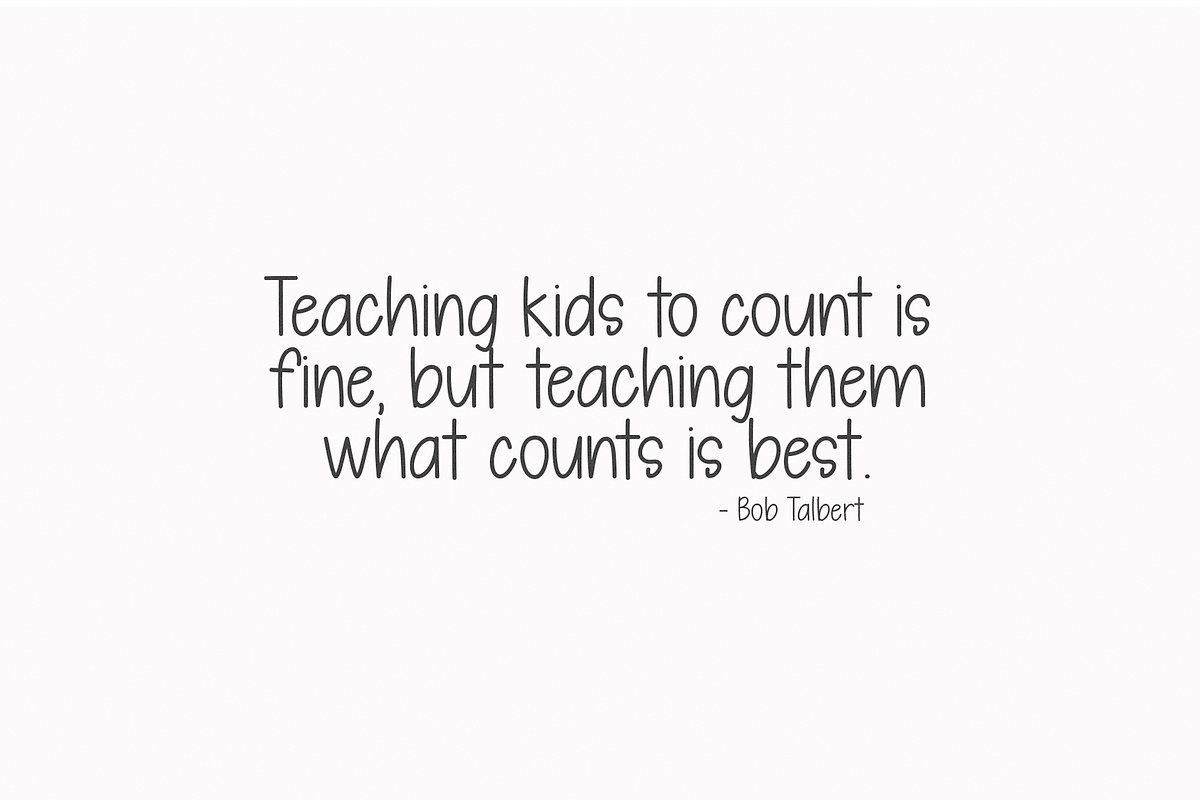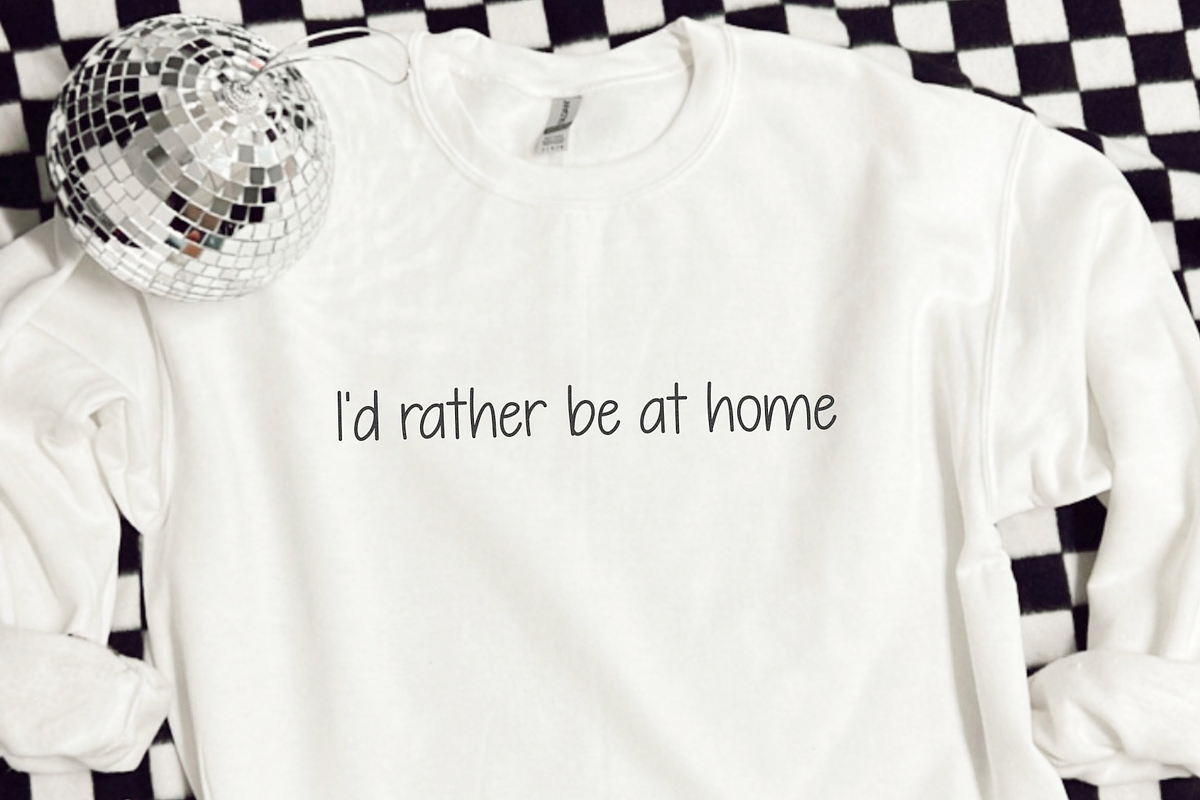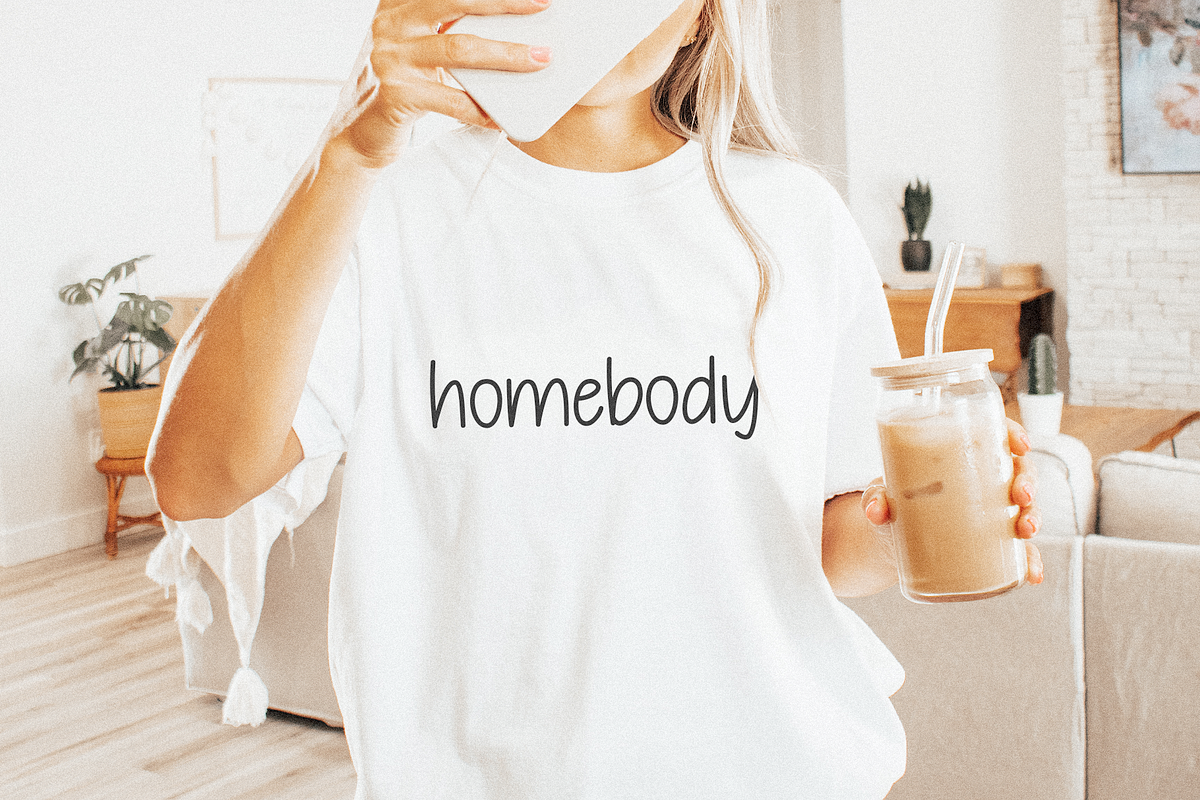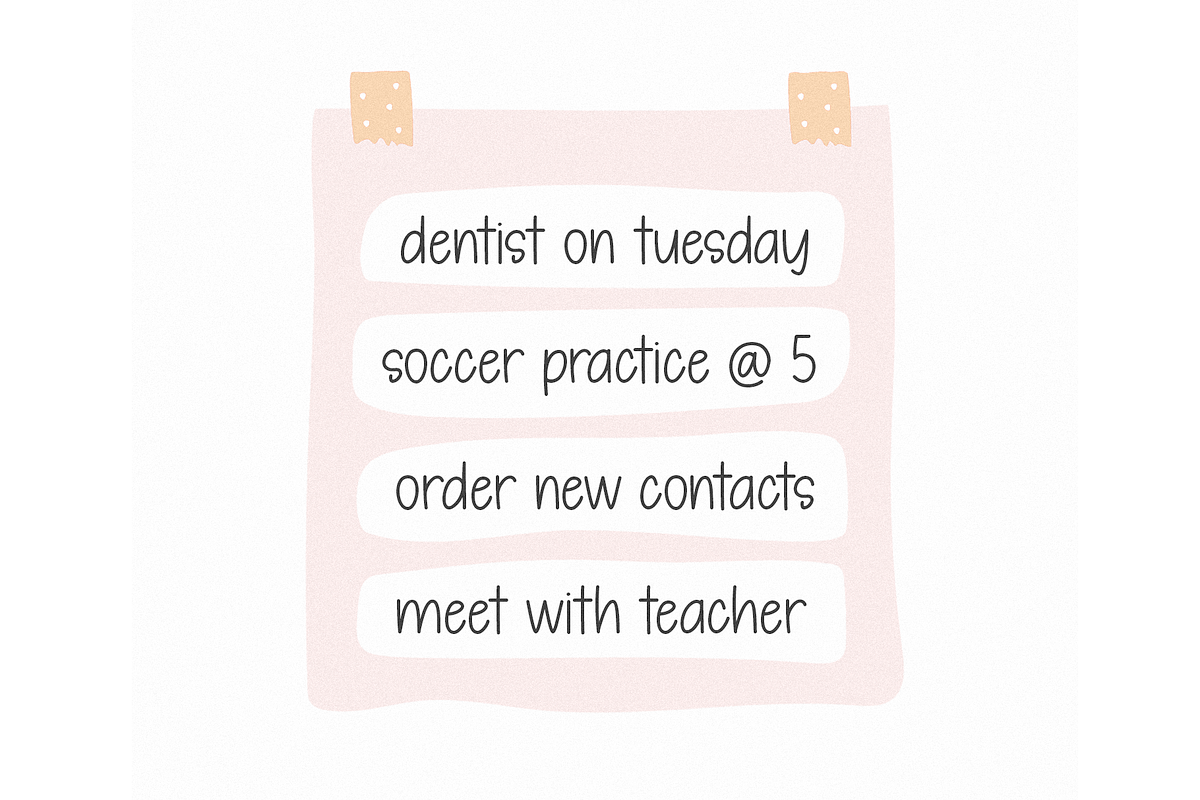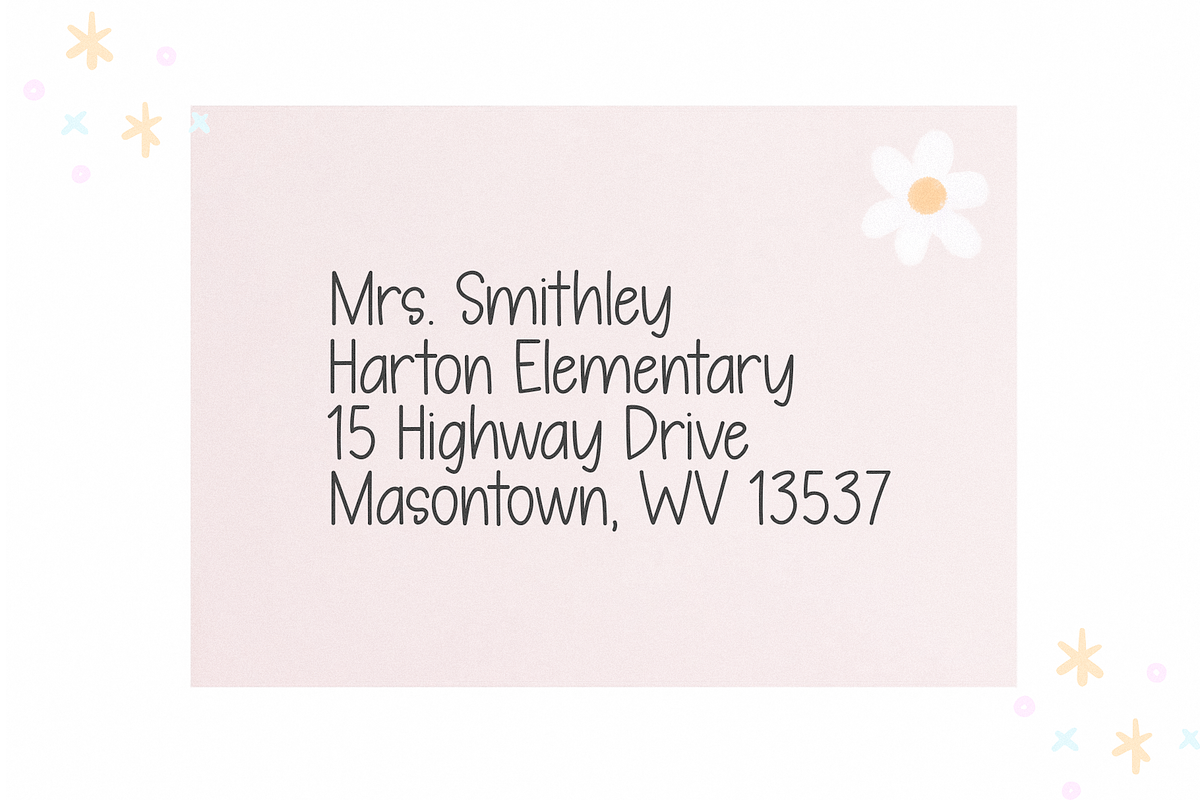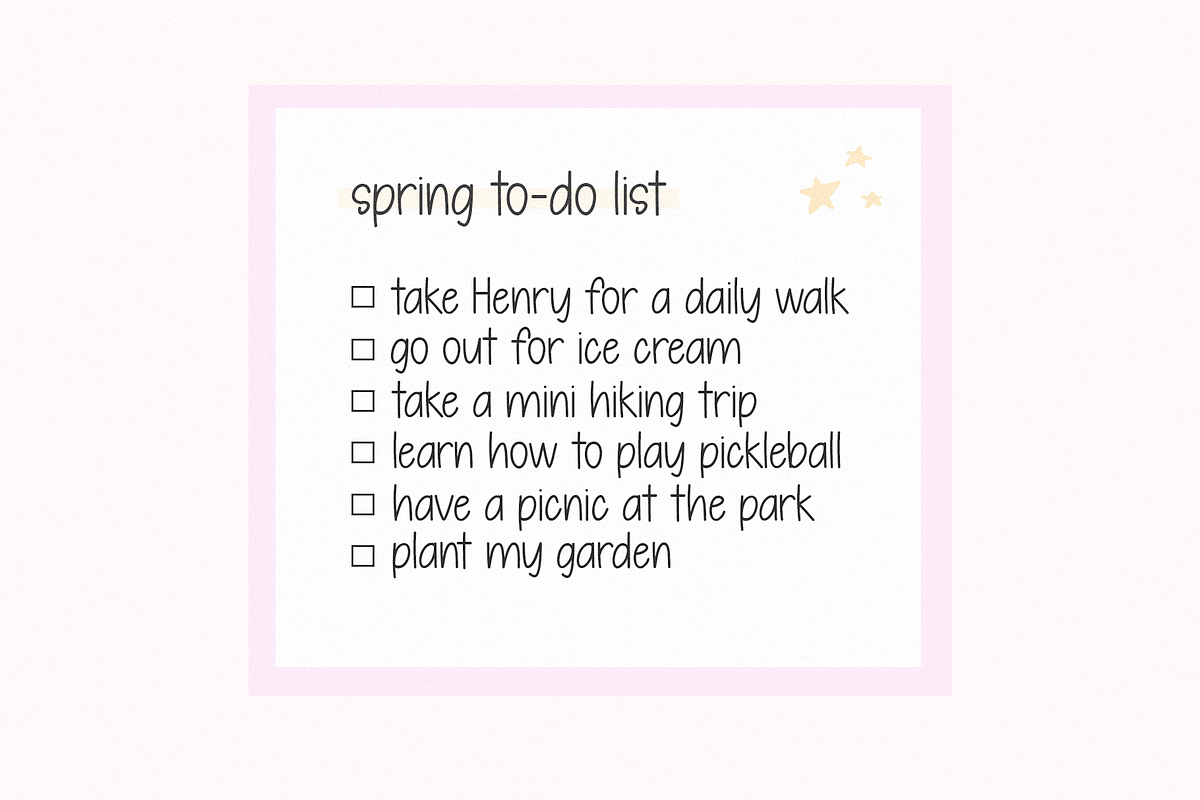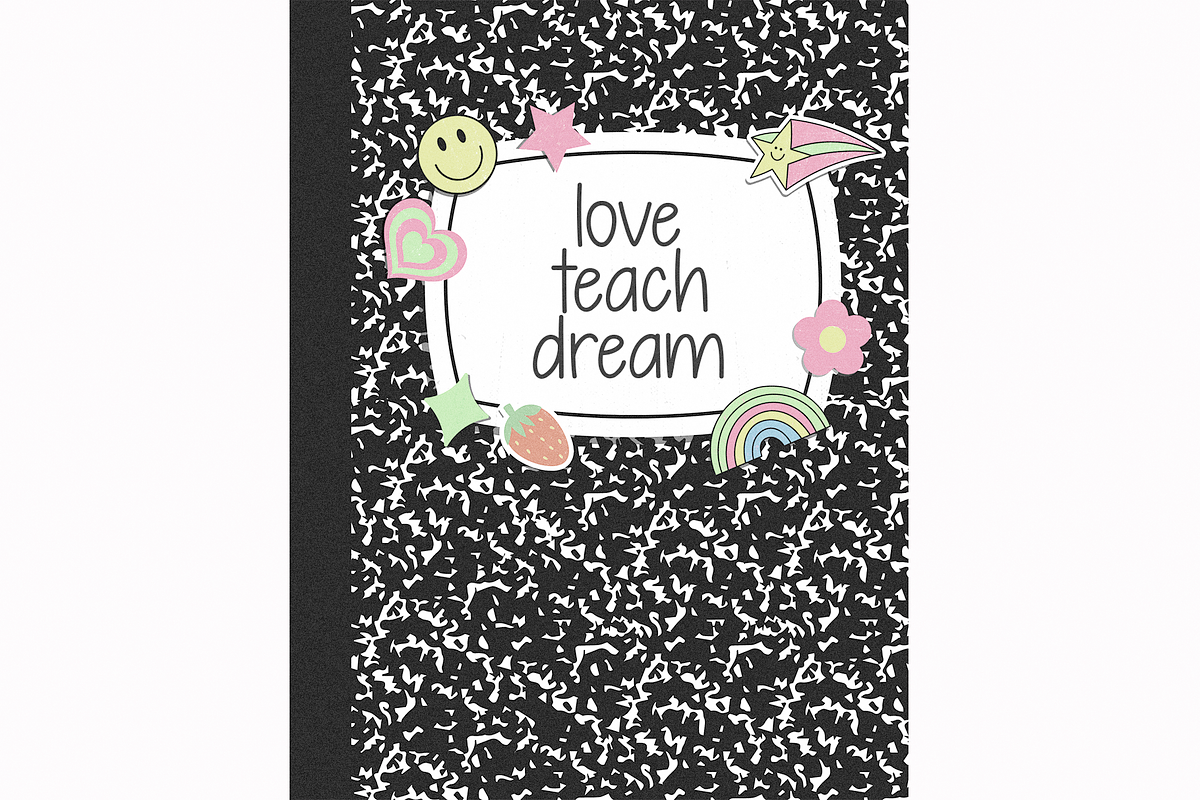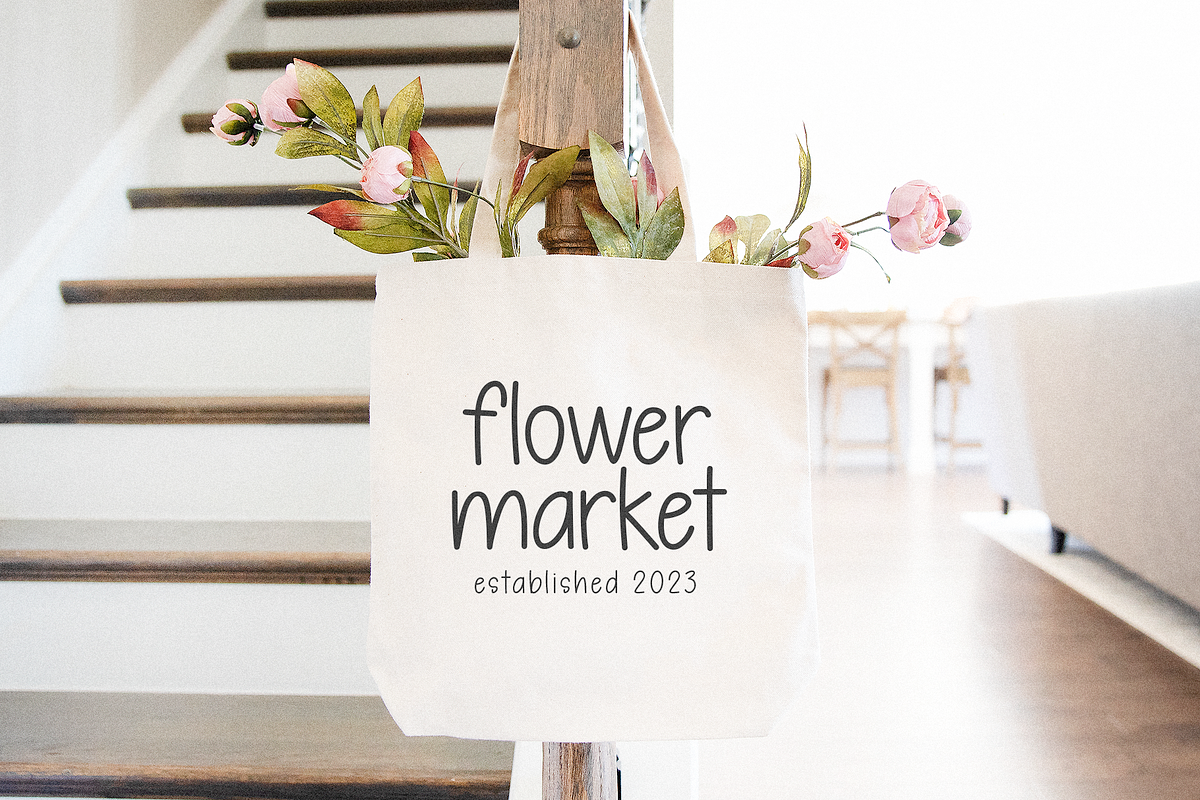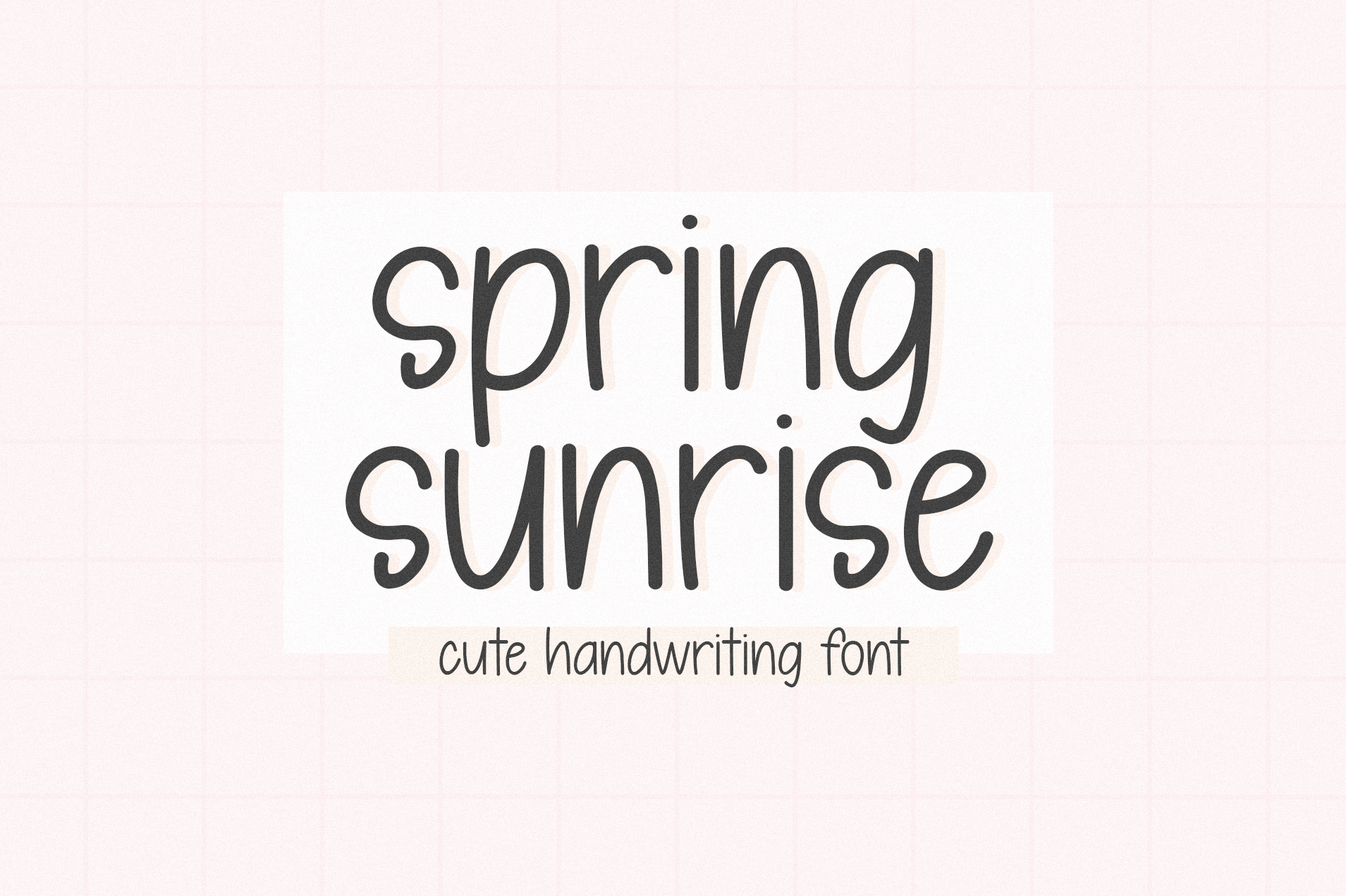
Spring Sunrise | Cute Font
Spring Sunrise is a cute handwritten font.
This font is perfect for cricut projects, teachers, goodnotes, planners, stickers, quotes and more!